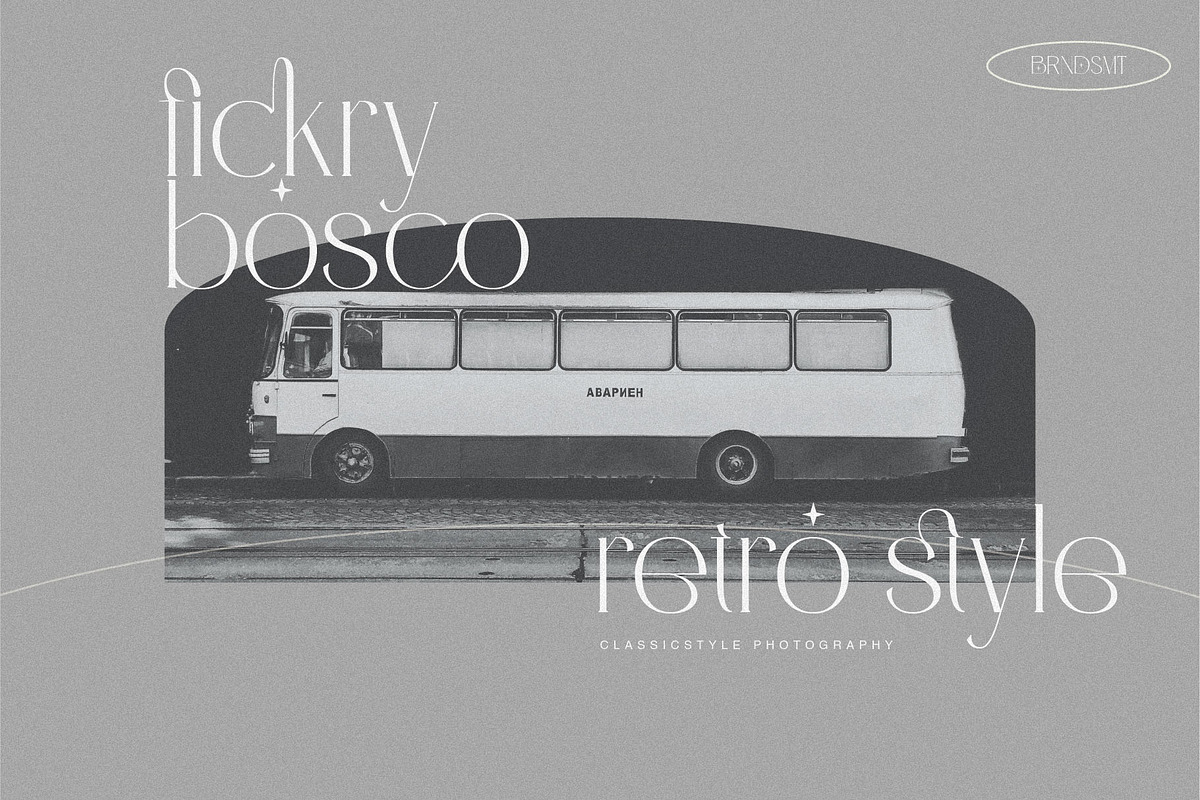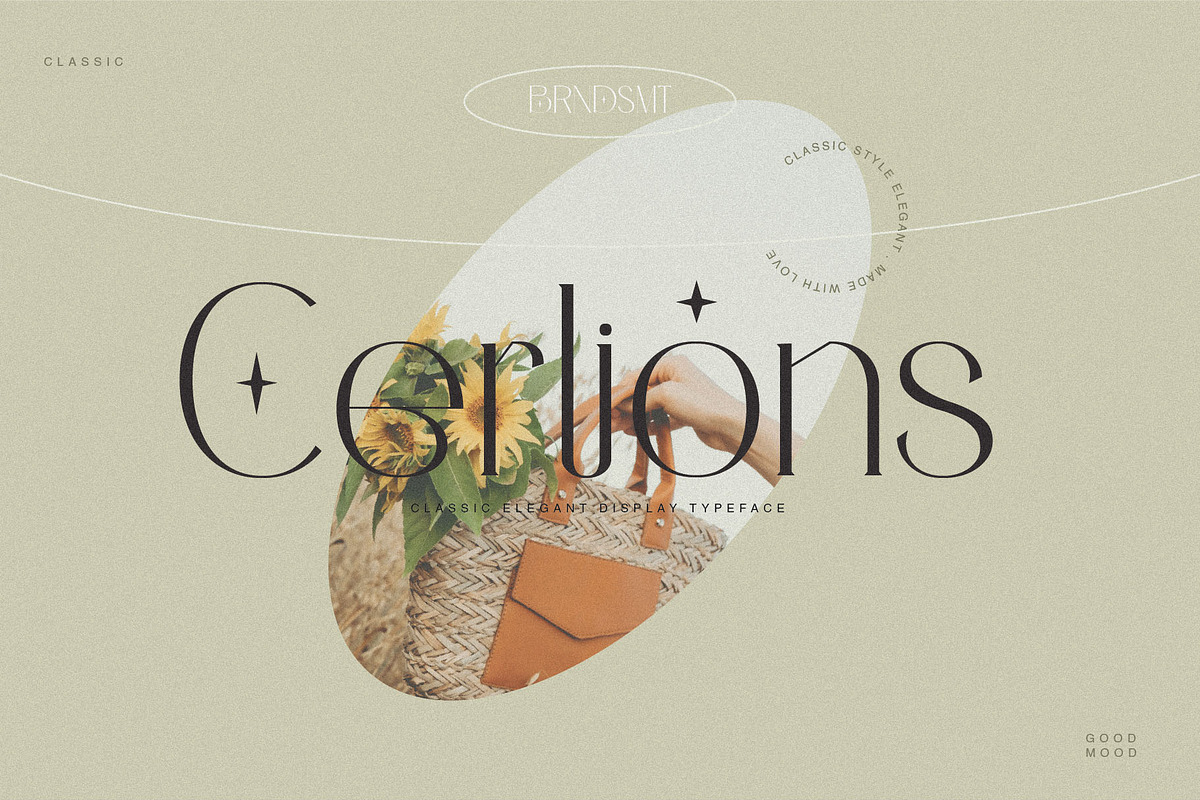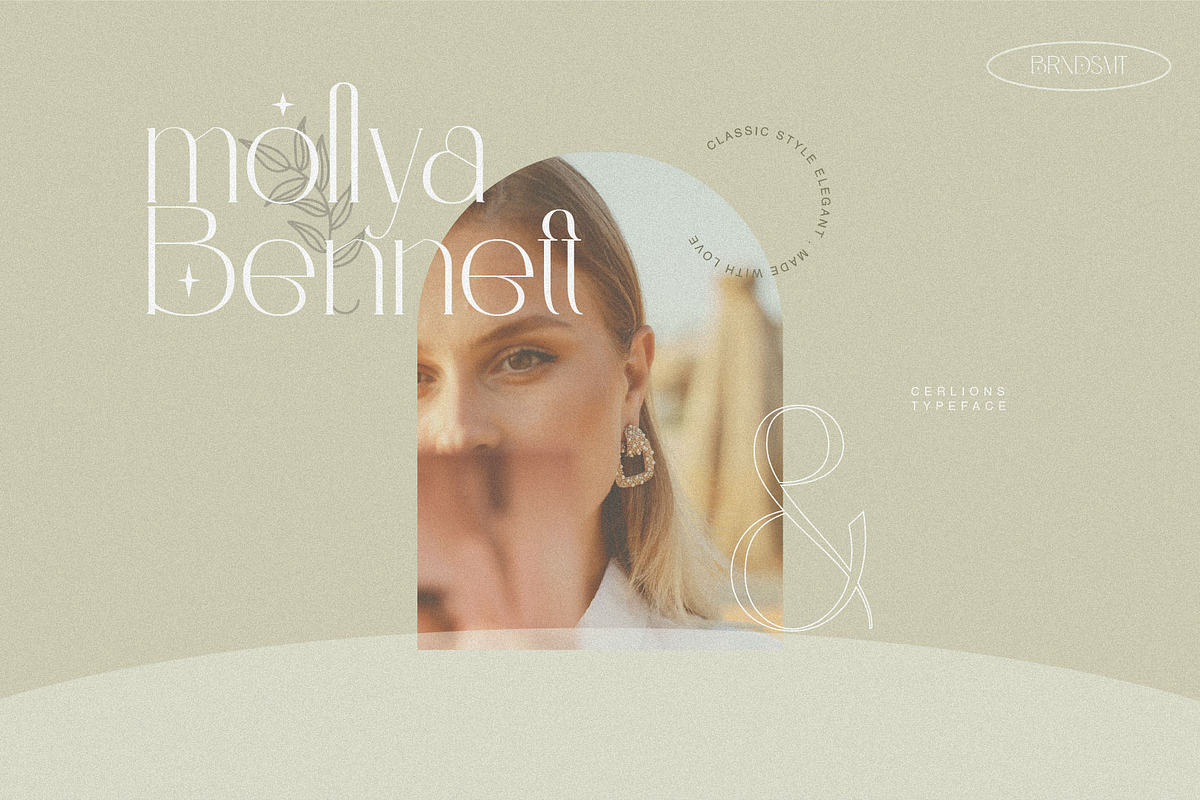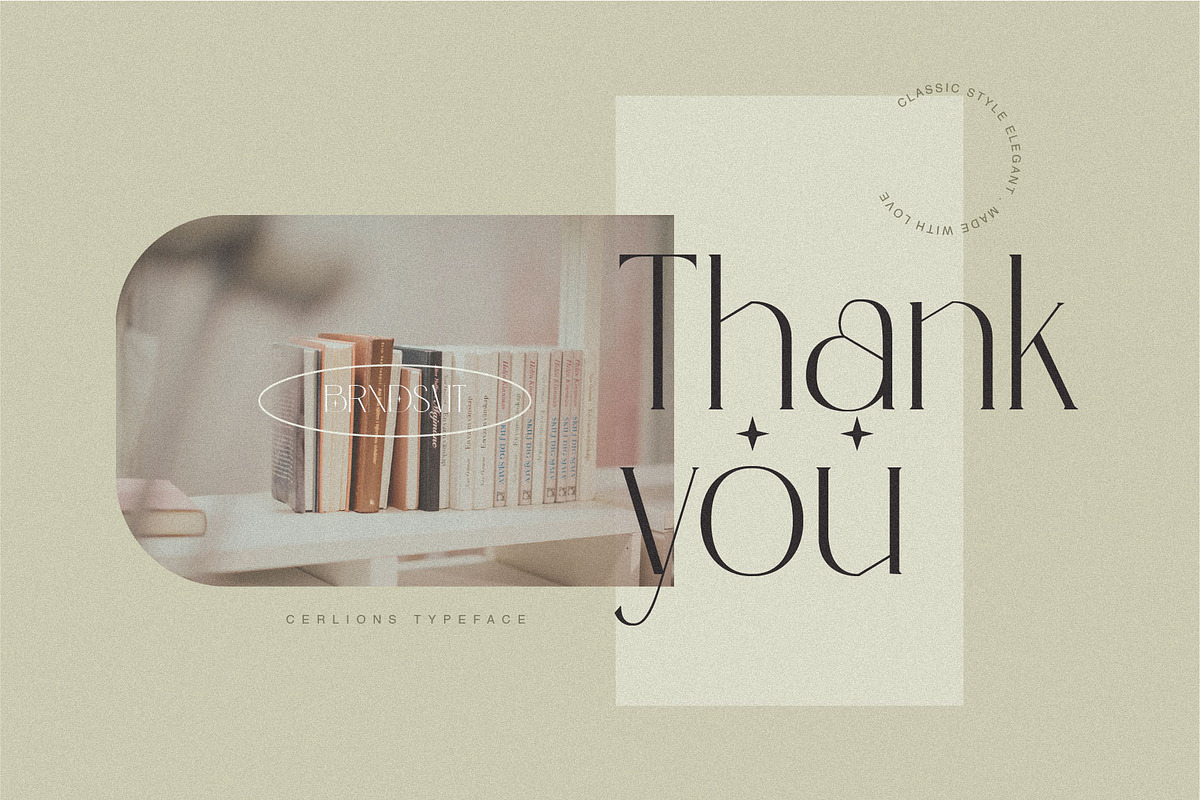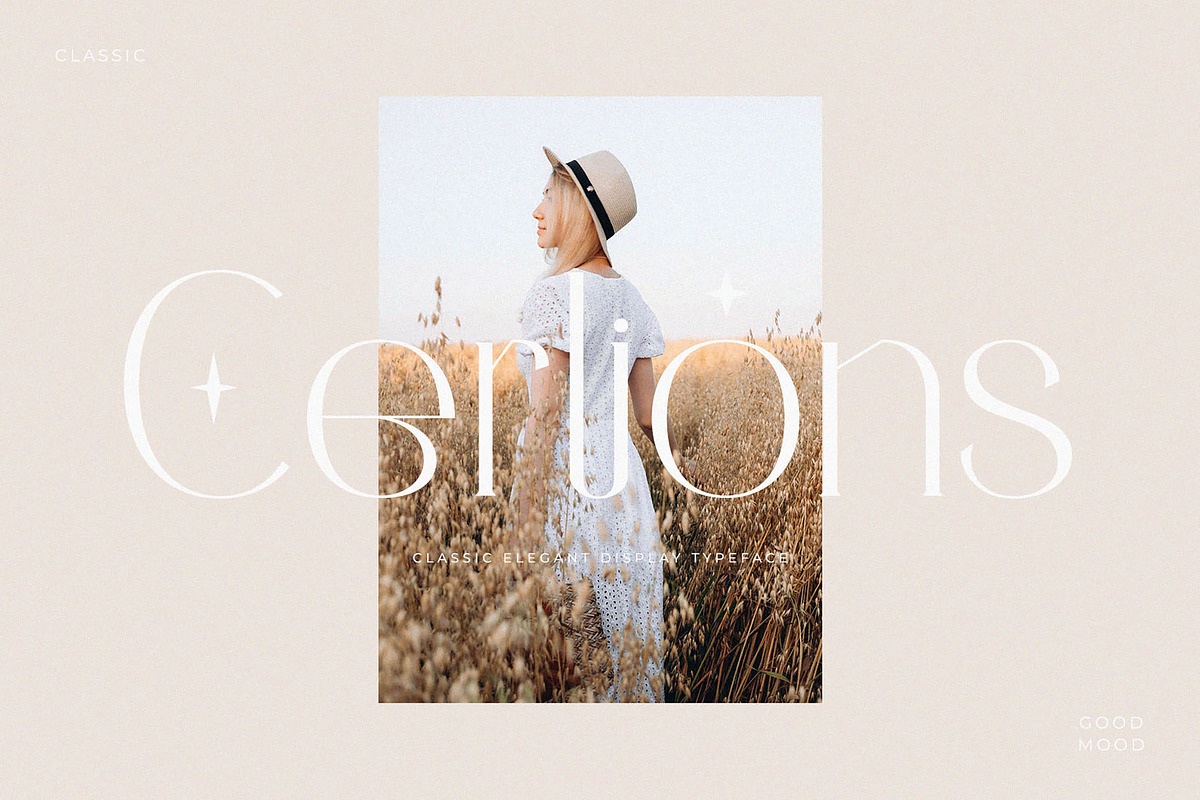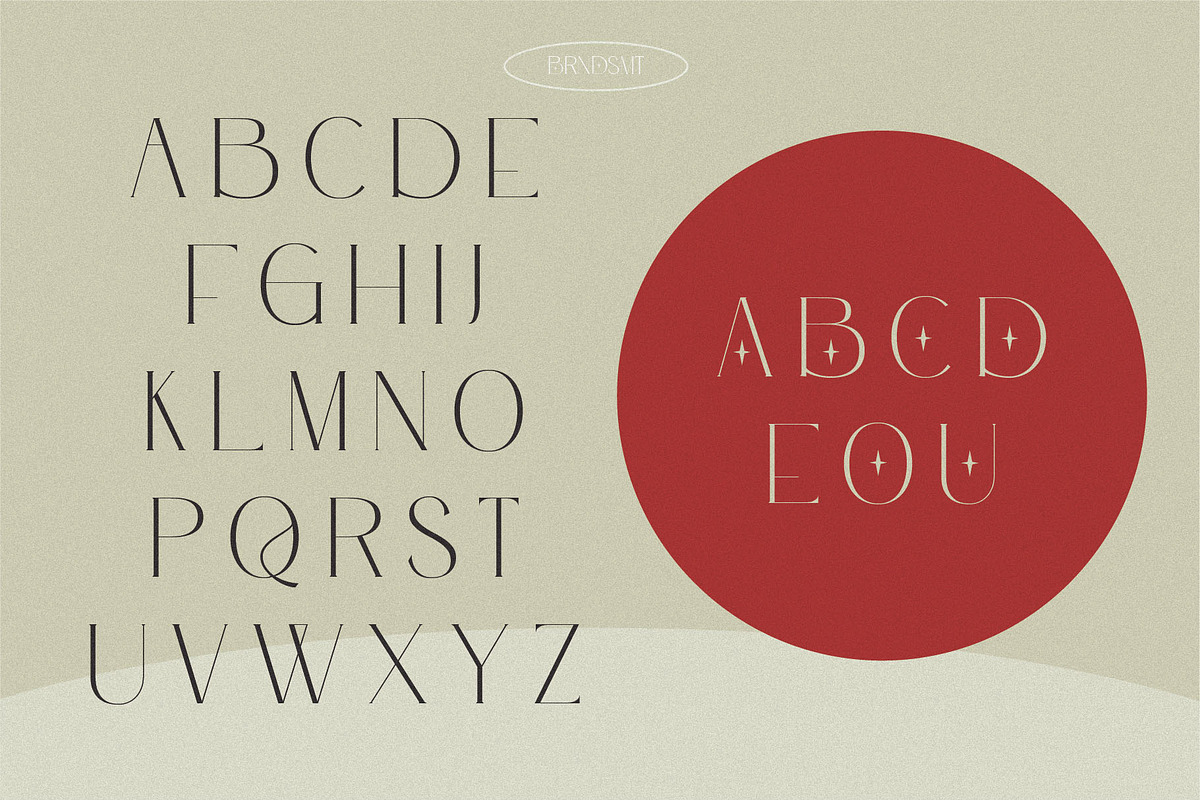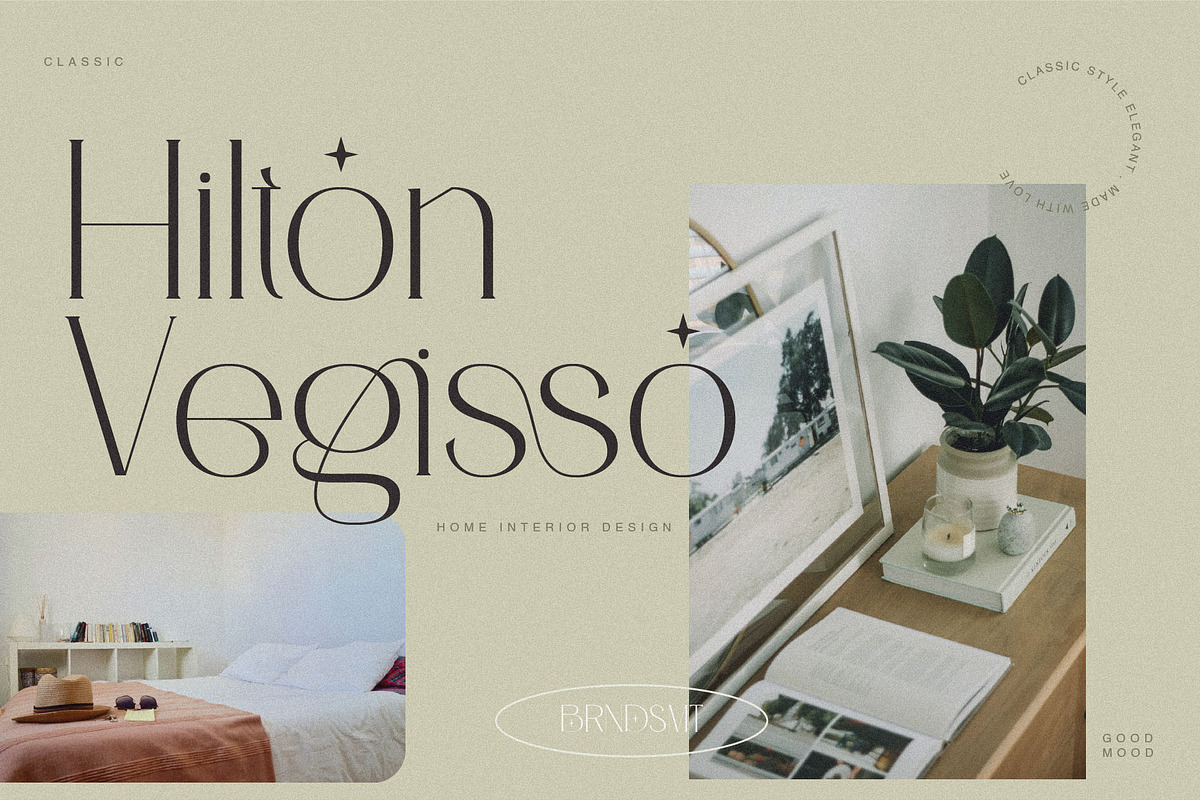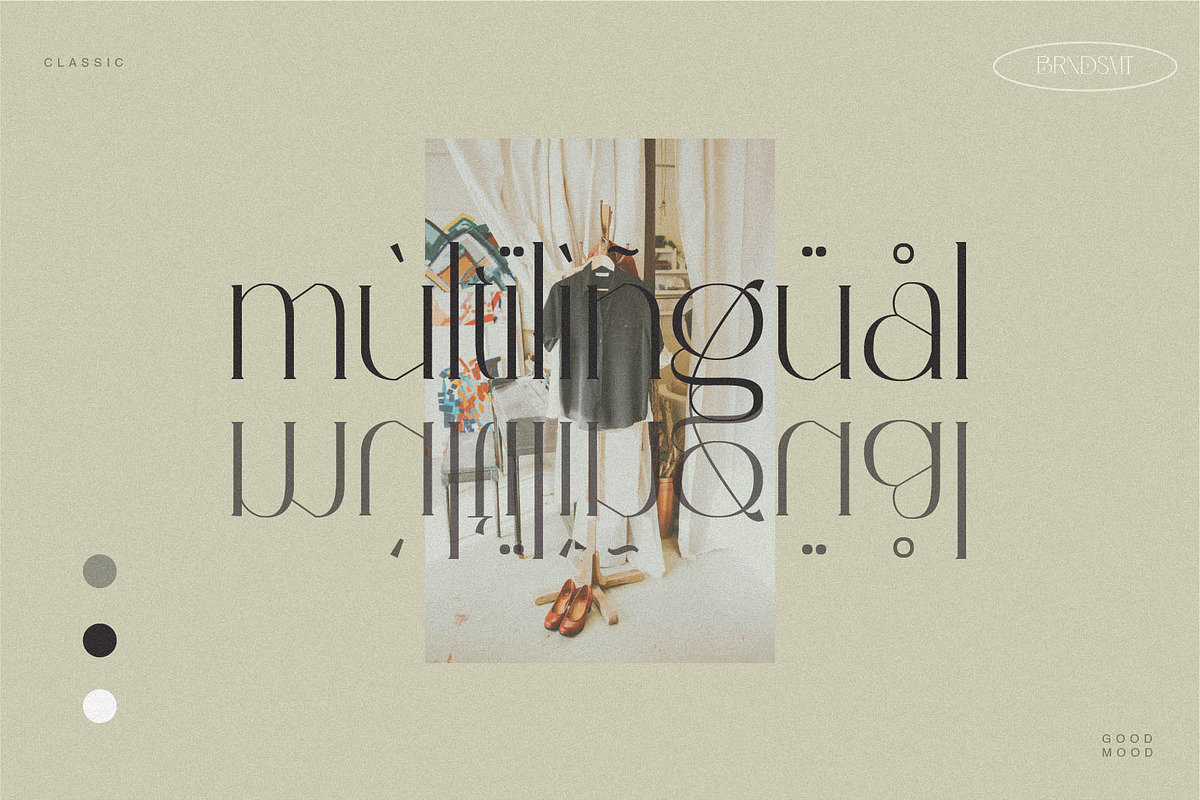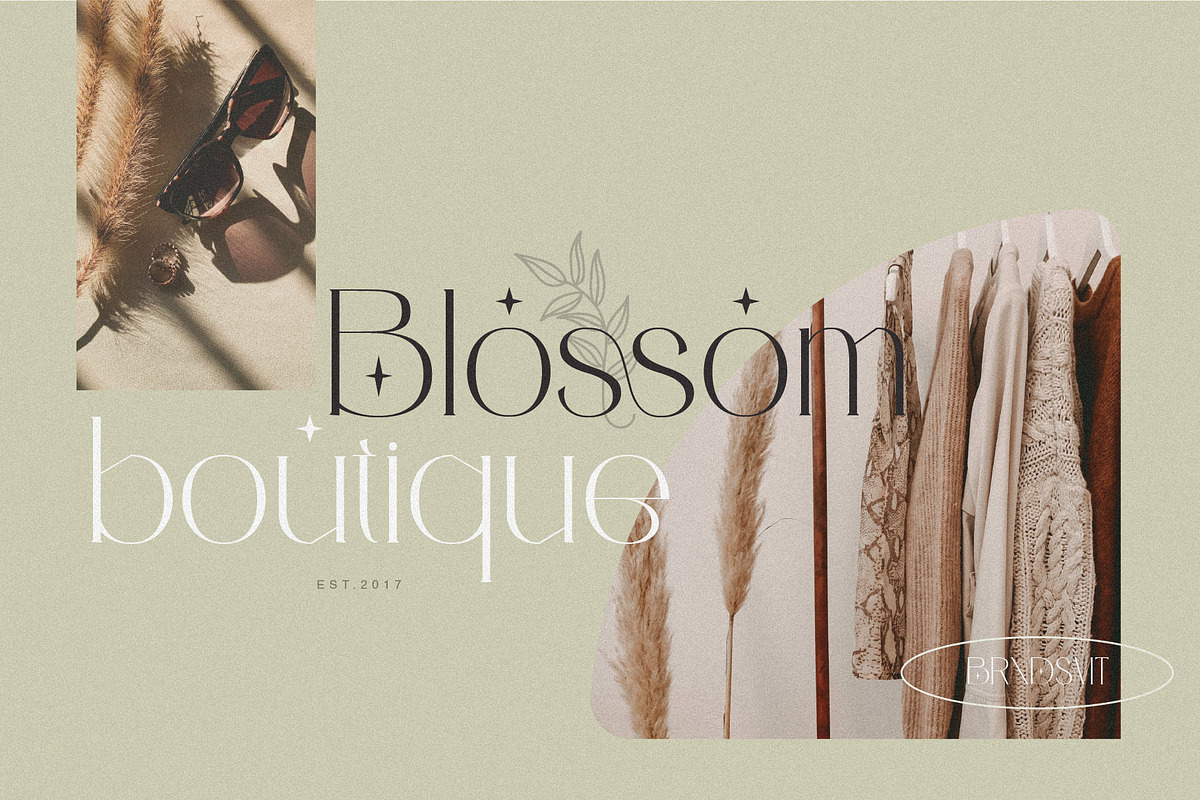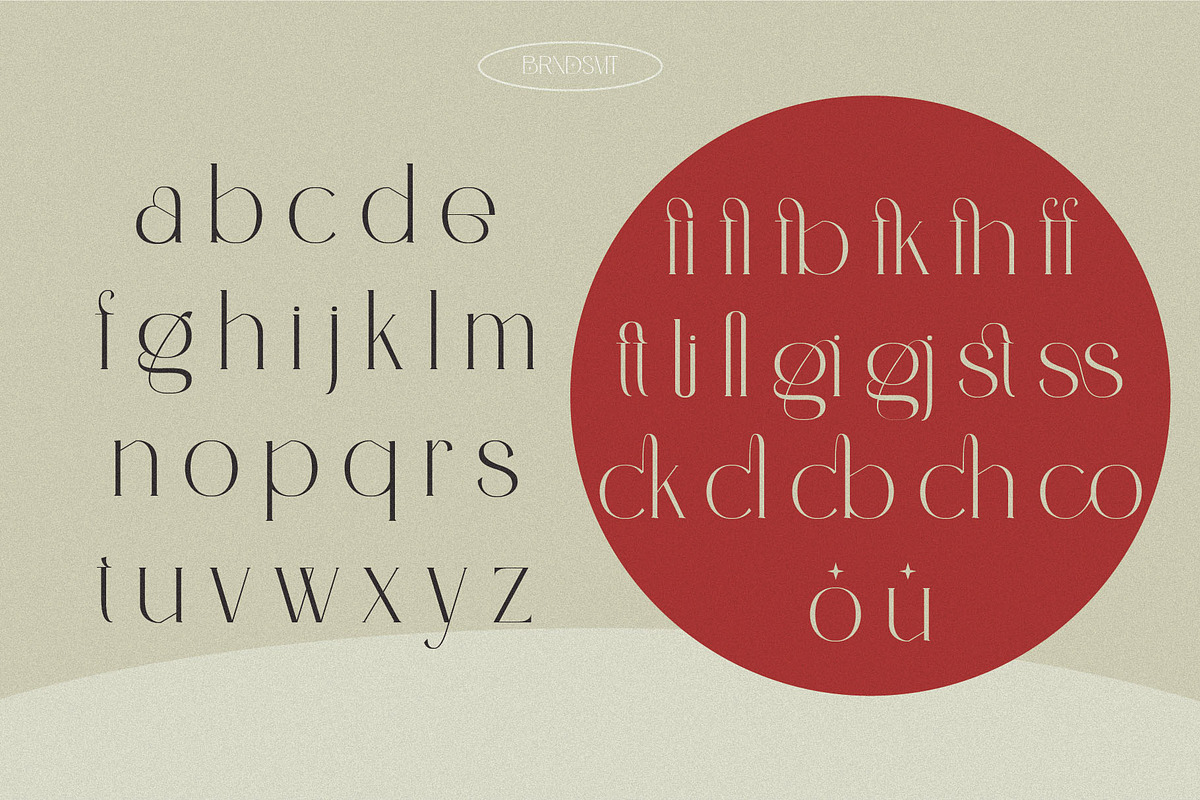
Cerlions - Classic Elegant Display
Introducing the new Cerlions Ligature Serif!!! Cerlions is a classic and classy serif font. This font is both modern and nostalgic and works great for logos, magazine, social media. Already matched up and ready to be used together for your next design! For those of you who are needing a touch of elegant, stylish, classy, chic and modernity for your designs, this font was created for you!
Cerlions was built with OpenType features and includes ligatures, alternates, numbers, punctuation, and it also supports other languages.